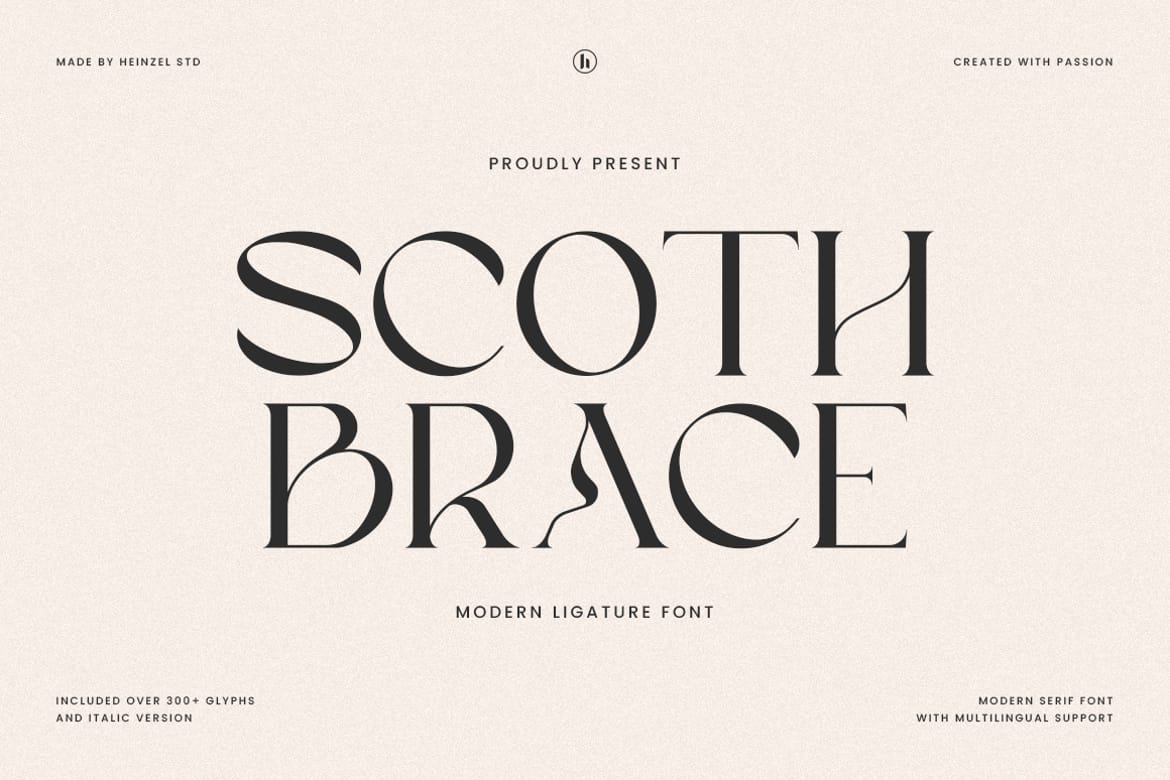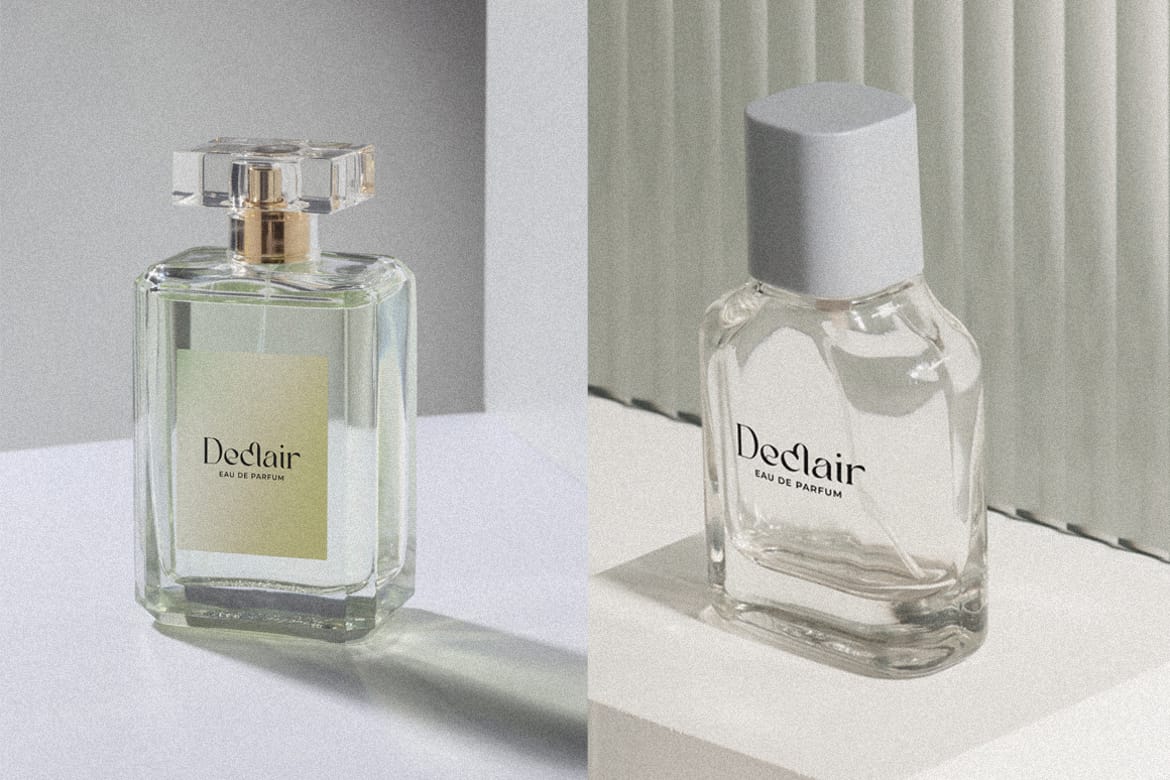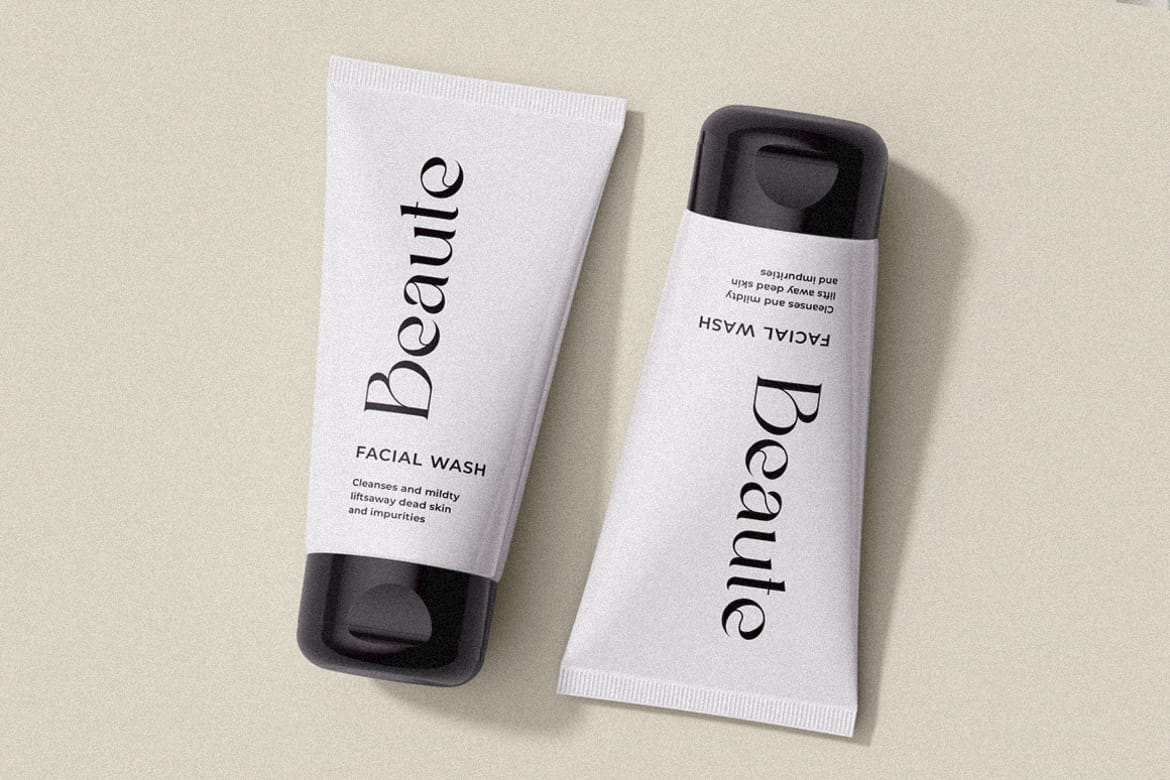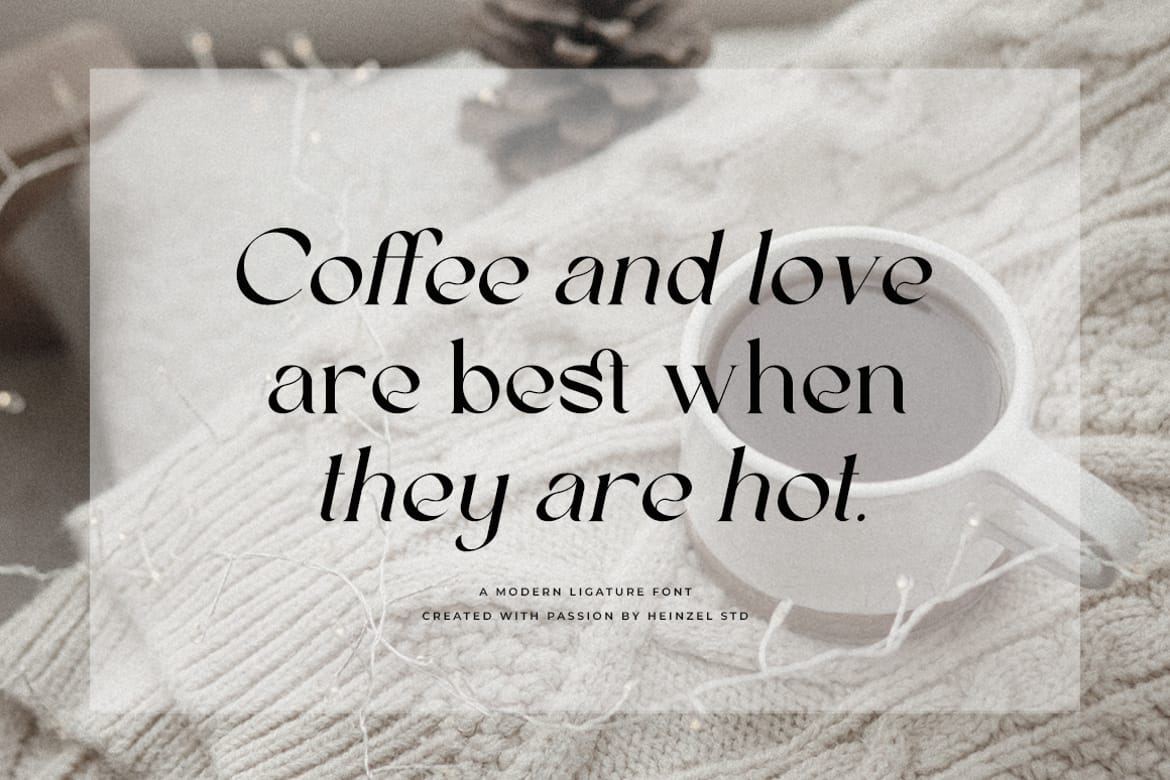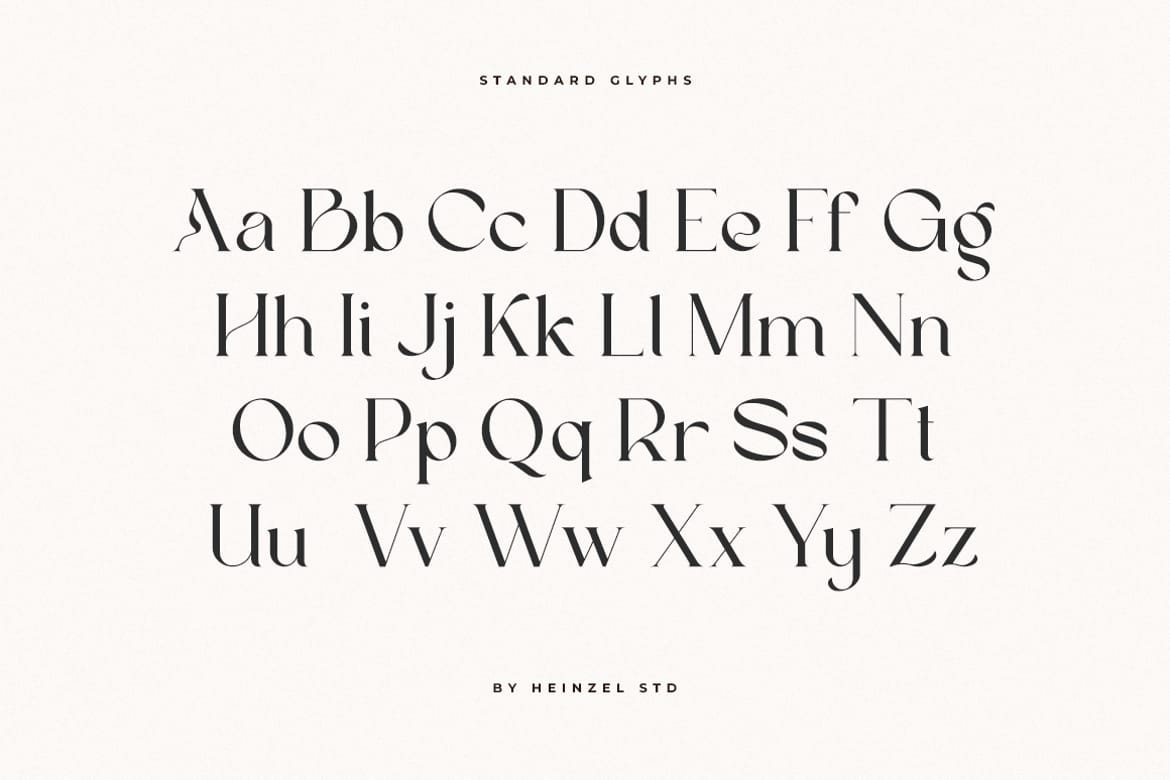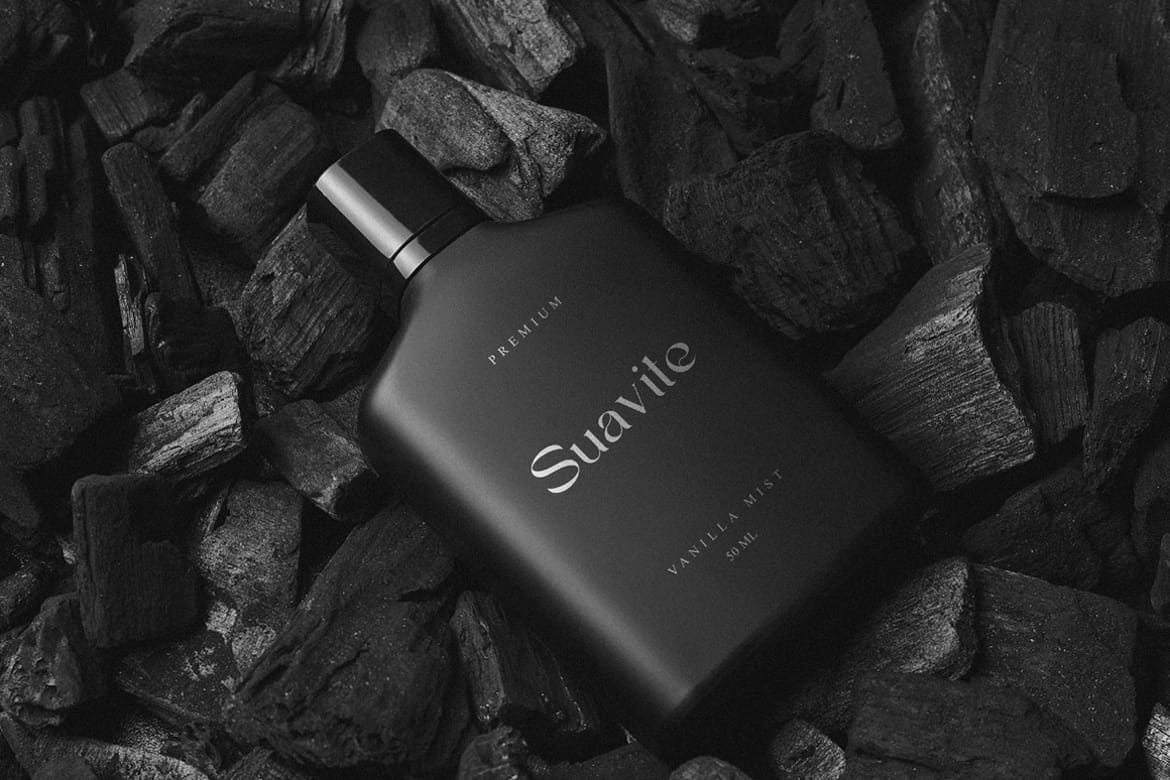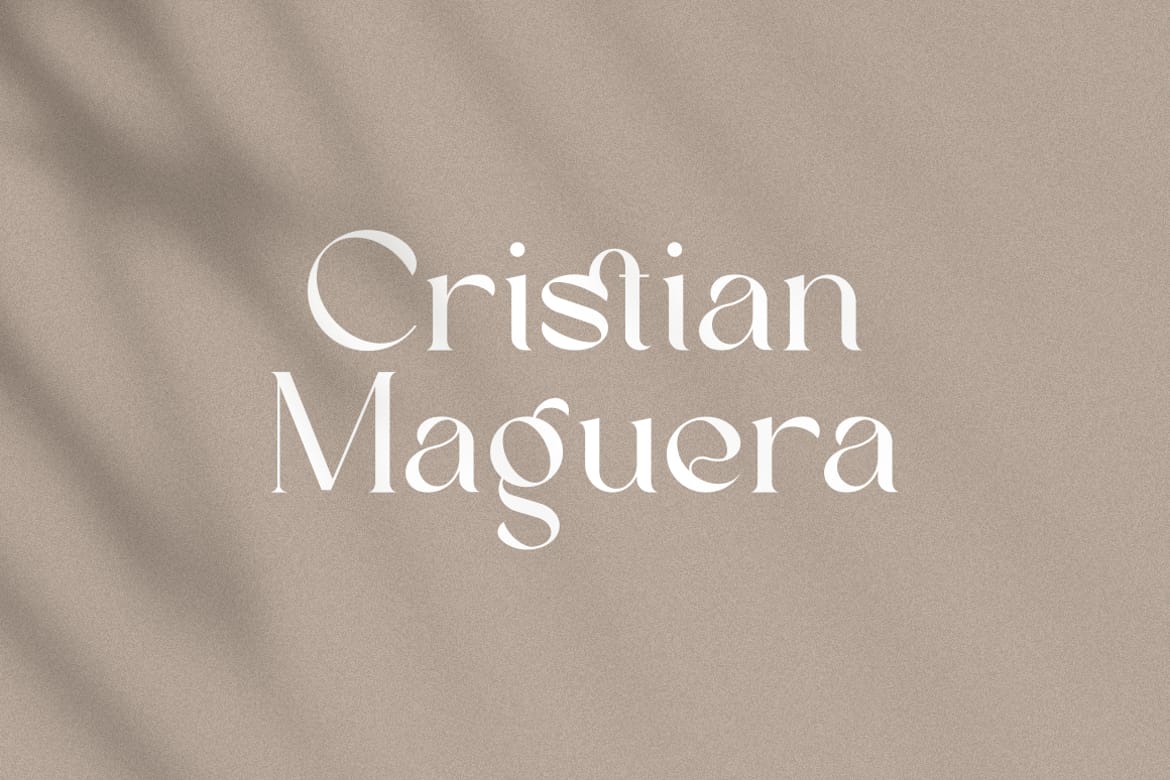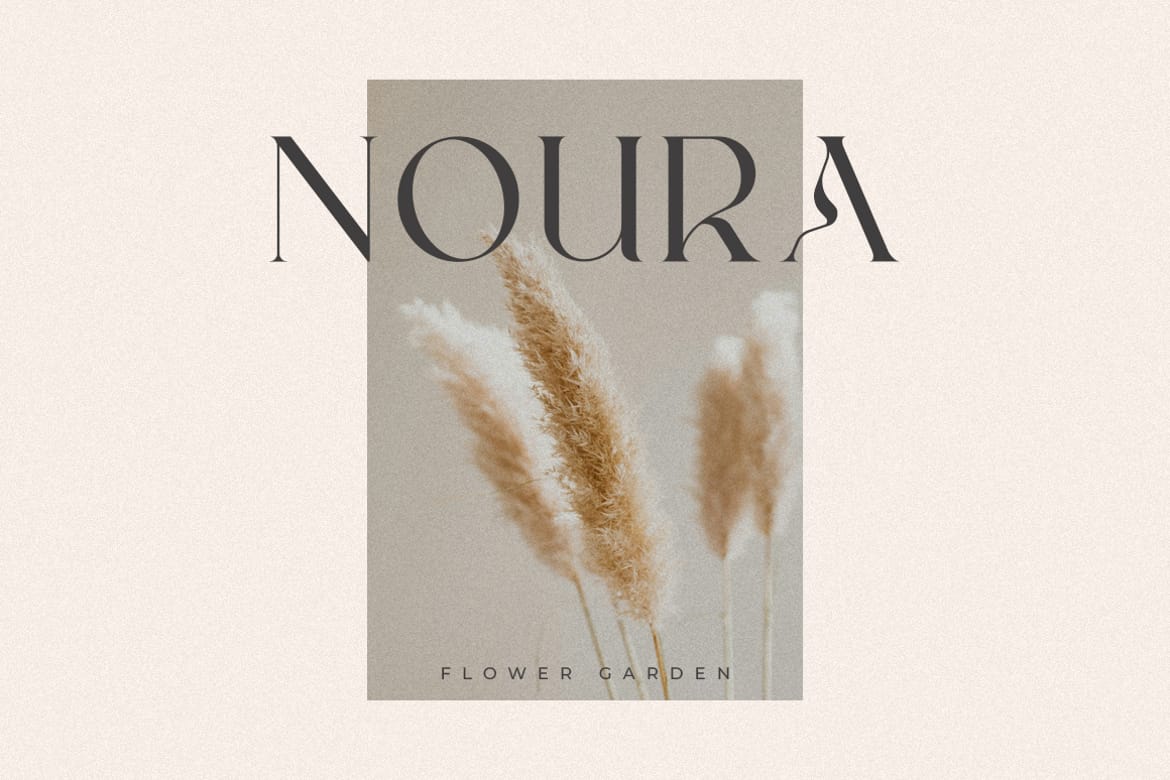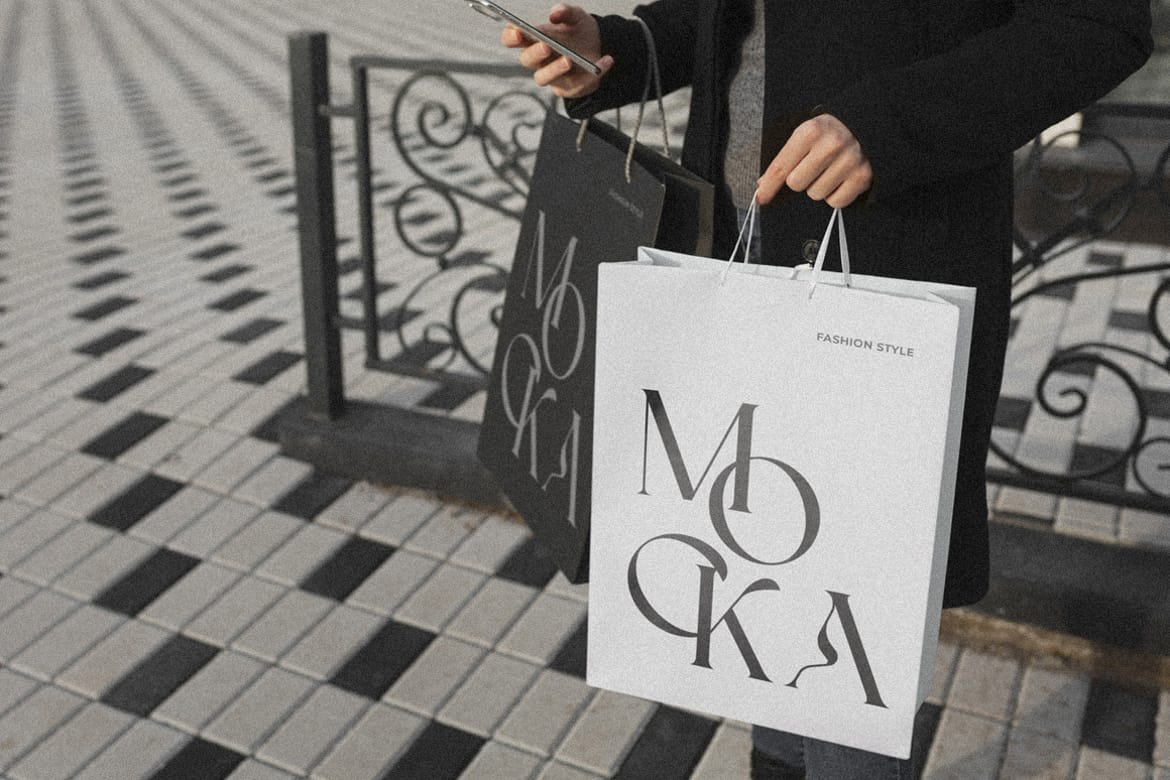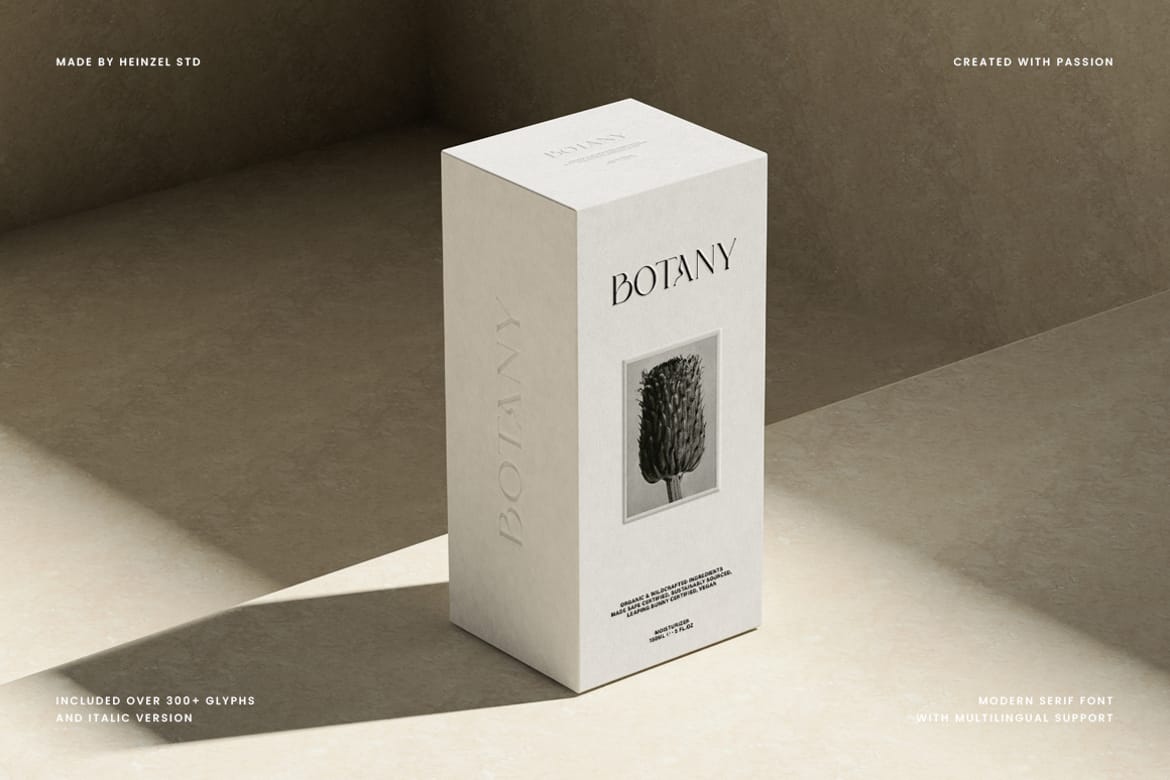
Scoth Brace Modern Ligature Font
Scoth Brace is a sophisticated modern ligature serif font that combines timeless elegance with contemporary artistic details. Designed with graceful letterforms, refined contrast, and distinctive ligatures, this typeface creates a luxurious and high-end visual identity for branding, editorial design, fashion campaigns, wedding invitations, packaging, and premium logos.